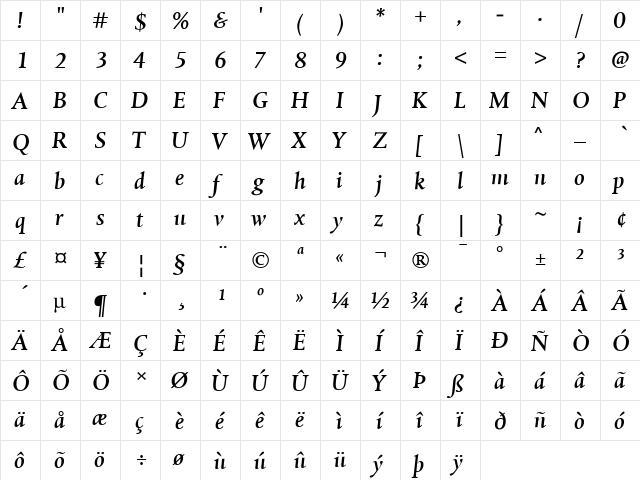
DTLAlbertinaT ItalicMedium
Design Context for DTLAlbertinaT Typeface
DTLAlbertinaT offers clean, dependable letterforms without strong stylistic allegiance, making it a practical choice for designers who need flexibility. The dynamic lean of this cut emphasises speed and emphasis in any layout.
Pro Tip: Try DTLAlbertinaT for annotation and caption copy alongside an upright companion — the contrast in angle creates a dynamic but ordered typographic system.